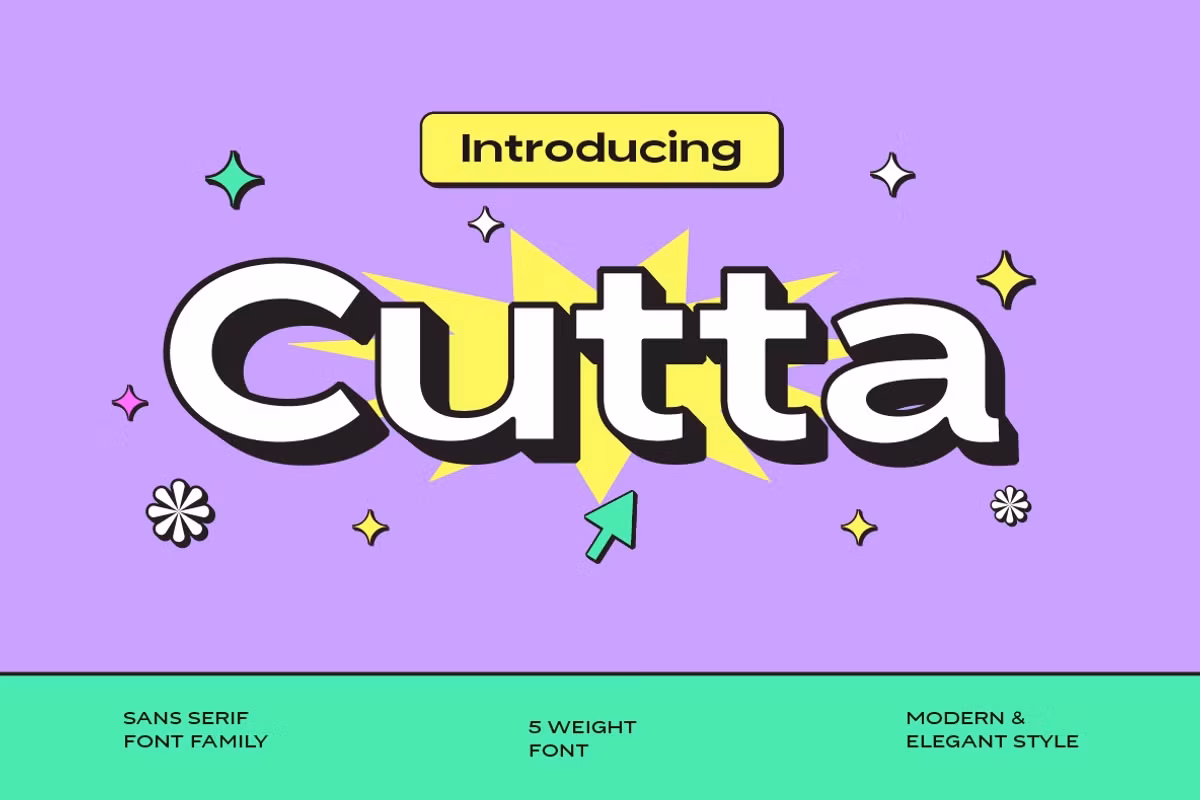
Cutta Sans Serif Font Free Download is a clean, modern typeface designed with simplicity and readability in mind. Featuring bold, geometric shapes and a sleek, minimalistic style, this font is perfect for creating contemporary logos, branding, editorial designs, and websites. Its versatile design ensures that it works seamlessly across a variety of creative projects, from corporate branding to personal design ventures. Whether you’re designing a modern business identity, crafting a stylish website, or creating eye-catching promotional materials, Cutta Sans Serif Font Free Download allows you to explore its sharp, refined style in personal projects before purchasing a commercial license. Add a touch of modern sophistication to your designs with this beautifully crafted sans serif font.